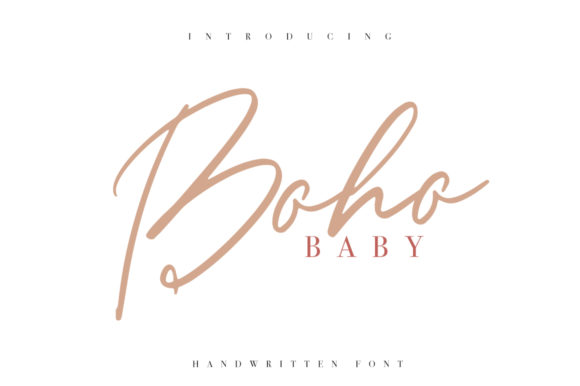
Introducing Boho Baby Font, the perfect script font for all your design needs! Created by the talented Katie Holland, this font family brings a unique style inspired by classic typography. Boho Baby is a fantastic handwritten font that will make your headlines stand out, and it's perfect for blocks of text with maximum and minimum variations.
Boho Baby Font is versatile and can be used for any design project, whether it's for web, print, moving images, or anything else. Its stylish, chic, and effortless look will make any design project look spectacular. With Boho Baby Font, you can easily create eye-catching designs that will leave a lasting impression on your audience.
Whether you're designing a logo, poster, or social media graphics, Boho Baby Font will elevate your design to the next level. Its unique style and beautiful curves make it perfect for any design that needs a touch of creativity and sophistication.
In conclusion, if you're looking for a font that's both beautiful and versatile, Boho Baby Font is the perfect choice. With its stunning handwritten style and ability to work well with any design project, it's no wonder why it's a popular choice among designers. Download Boho Baby Font today and start creating stunning designs that will captivate your audience!